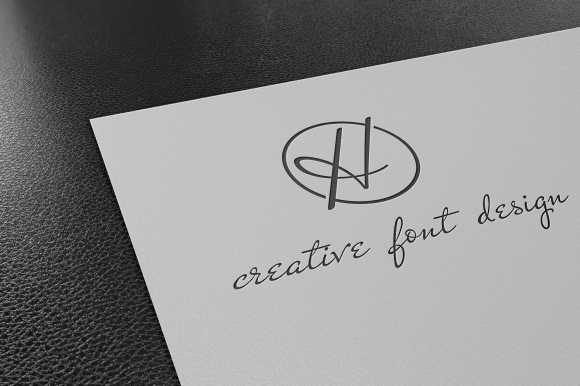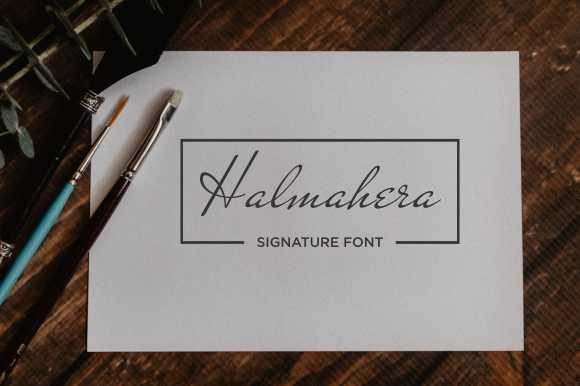
Halmahera Font: The Handmade Brush Font for Creative Designs
Are you a designer or crafter looking for a unique and original font to elevate your creative projects? Look no further than the Halmahera Font, a stunning handmade brush font that can add a touch of personality and style to your designs. In this article, we’ll explore the features and benefits of the Halmahera Font, and how it can be used to create beautiful and eye-catching designs for menus, fashion, labels, invitations, and more.
What is Halmahera Font?
The Halmahera Font is an original impression of a handmade brush font, carefully crafted to bring a sense of warmth and authenticity to your designs. With its unique and expressive lettering style, this font is perfect for designers and crafters who want to add a personal touch to their work. Whether you’re creating a menu for a restaurant, a label for a product, or an invitation for a special event, the Halmahera Font is sure to make your design stand out.
Features of Halmahera Font
The Halmahera Font boasts a range of features that make it an ideal choice for creative designs. Some of its key features include:
- Handmade brush font: The Halmahera Font is a genuine handmade brush font, giving it a unique and organic feel.
- Unique lettering style: The font features a distinctive lettering style that is both elegant and playful.
- Multilingual support: The Halmahera Font supports multiple languages, making it a great choice for designers who work with international clients.
Uses for Halmahera Font
The Halmahera Font is a versatile font that can be used for a wide range of design projects. Some of the most popular uses for this font include:
- Menus: Add a touch of elegance and sophistication to your restaurant or cafe menu with the Halmahera Font.
- Fashion: Use the Halmahera Font to create stylish and eye-catching fashion labels, packaging, and marketing materials.
- Labels: The Halmahera Font is perfect for creating labels for products, gifts, or other items.
- Invitations: Make your invitations stand out with the Halmahera Font, perfect for weddings, parties, and other special events.
- More: The Halmahera Font can also be used for a wide range of other design projects, including posters, flyers, brochures, and more.
Tips for Using Halmahera Font
To get the most out of the Halmahera Font, here are a few tips to keep in mind:
- Experiment with font sizes: The Halmahera Font looks great in a range of font sizes, from large and bold to small and delicate.
- Play with color: The Halmahera Font can be used with a range of colors, from bold and bright to soft and pastel.
- Mix and match: Try pairing the Halmahera Font with other fonts to create a unique and eye-catching design.
The Halmahera Font is a unique and original handmade brush font that is perfect for designers and crafters looking to add a touch of personality and style to their designs. With its range of features, versatility, and ease of use, this font is sure to become a go-to choice for creative projects. Whether you’re creating menus, fashion labels, invitations, or more, the Halmahera Font is the perfect choice.